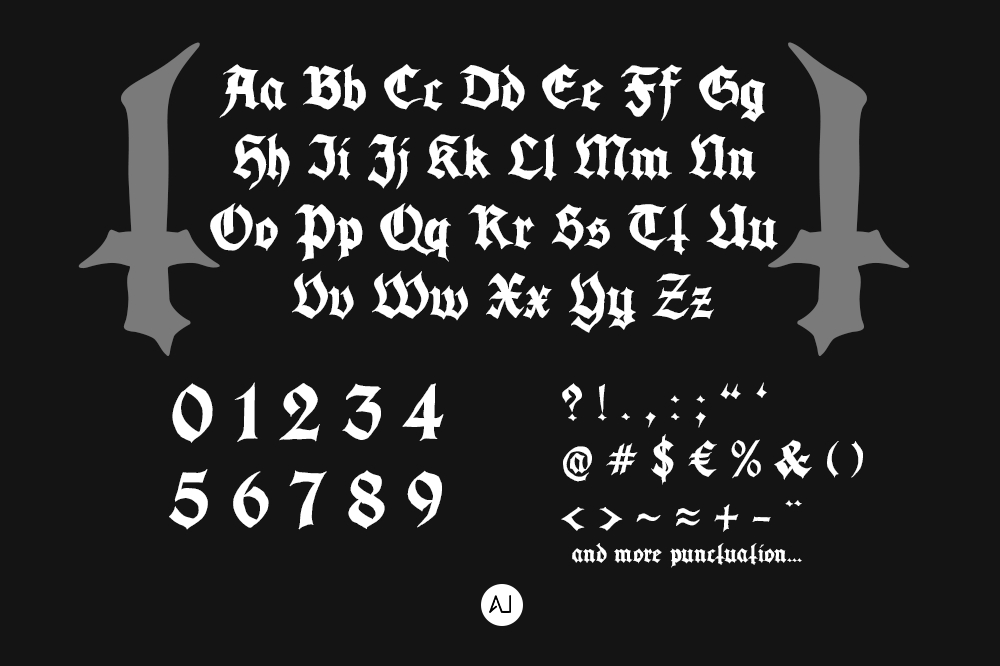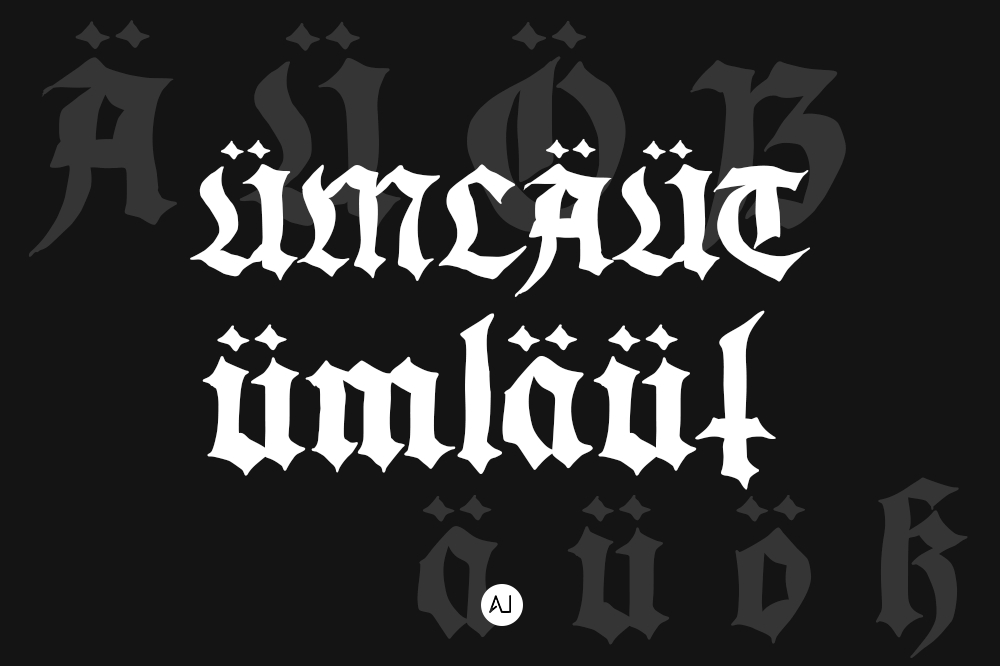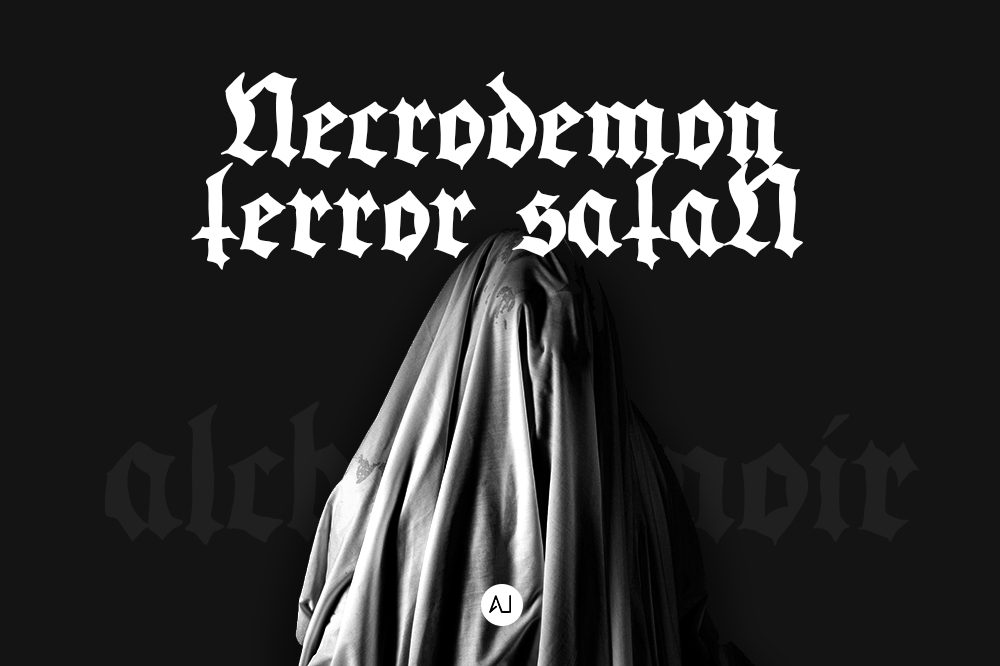
Necrodemon Font
About Necrodemon Font
Necrodemon is a bold, horror, and mysterious black lettered typeface. This typeface can be used for branding, halloween posters, metal band logos or album cover, apparel, merchandise, stickers, or anything that needs a evil and horror look.